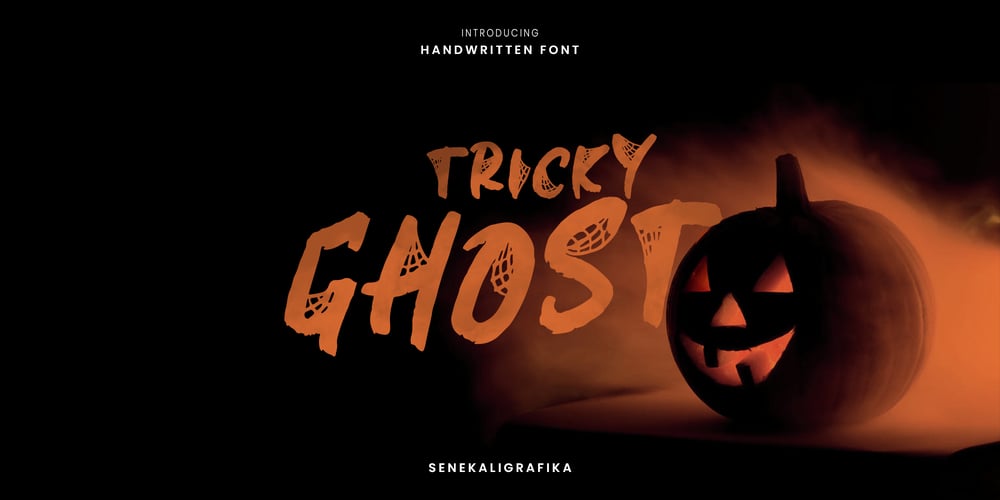
Tricky Ghost Font Family was designed by Muhammad Helmi and published by Senekaligrafika. Tricky Ghost contains 1 styles and family package options. “Tricky Ghost” Has hard unique and a signature styles with spider webs details in every letter, that speak to instant halloween sensations.“Tricky Ghost” will help you to create special and touching typographical design for your halloween and spooky projects, for greeting card, halloween project, branding, labeling, clothing, movie title, album cover, logos and many more.It is really universal and modern font.The owner of endless possibilities!